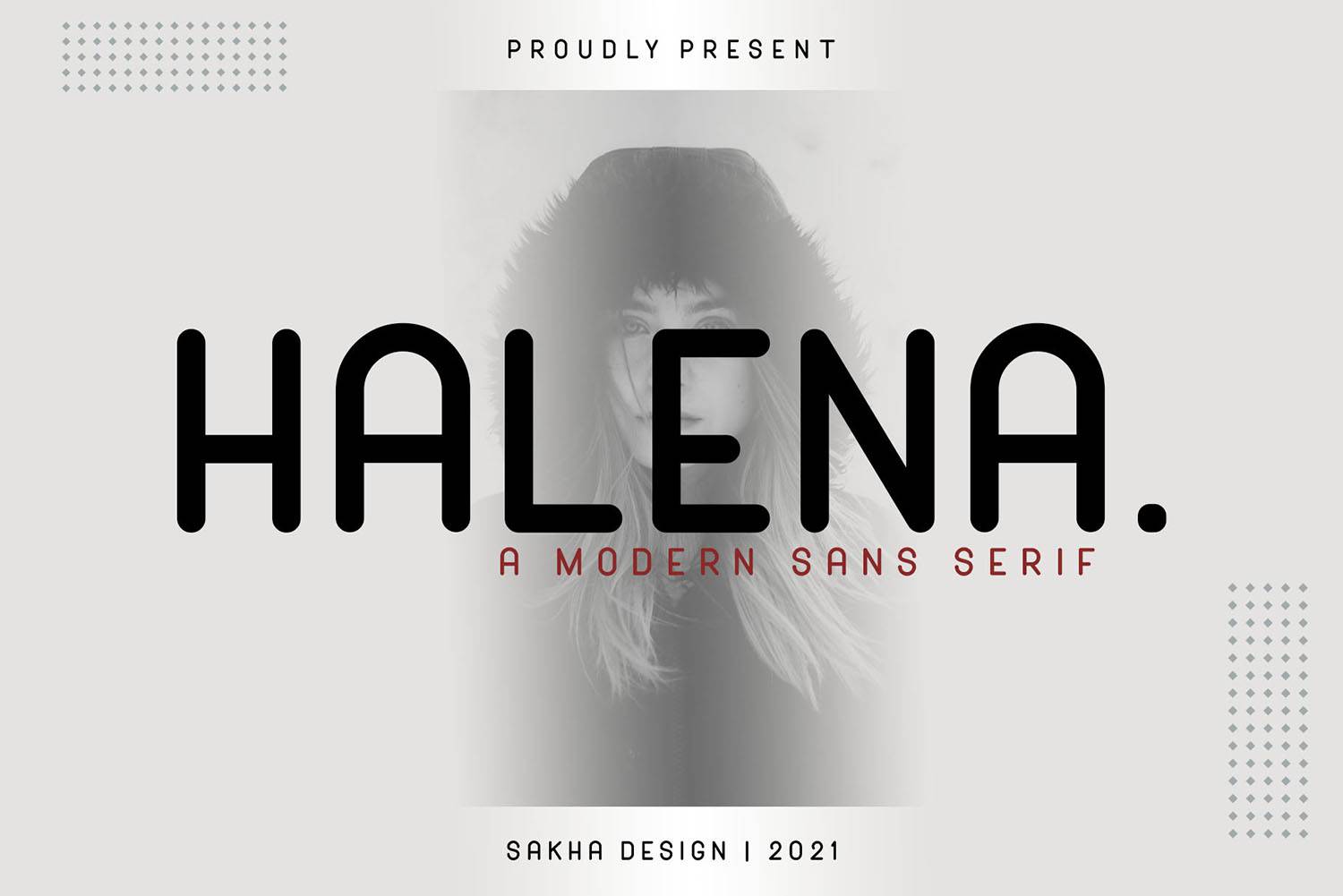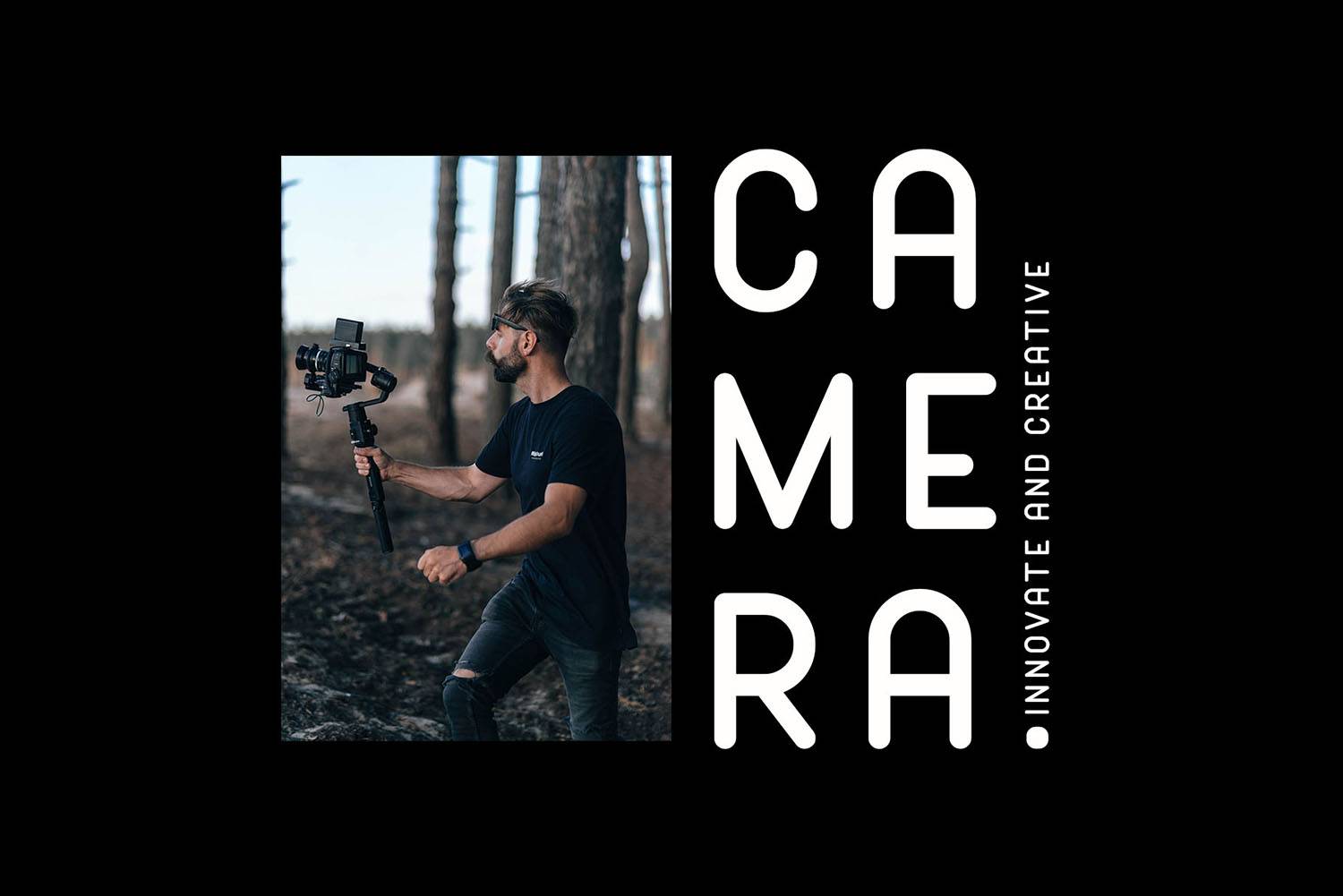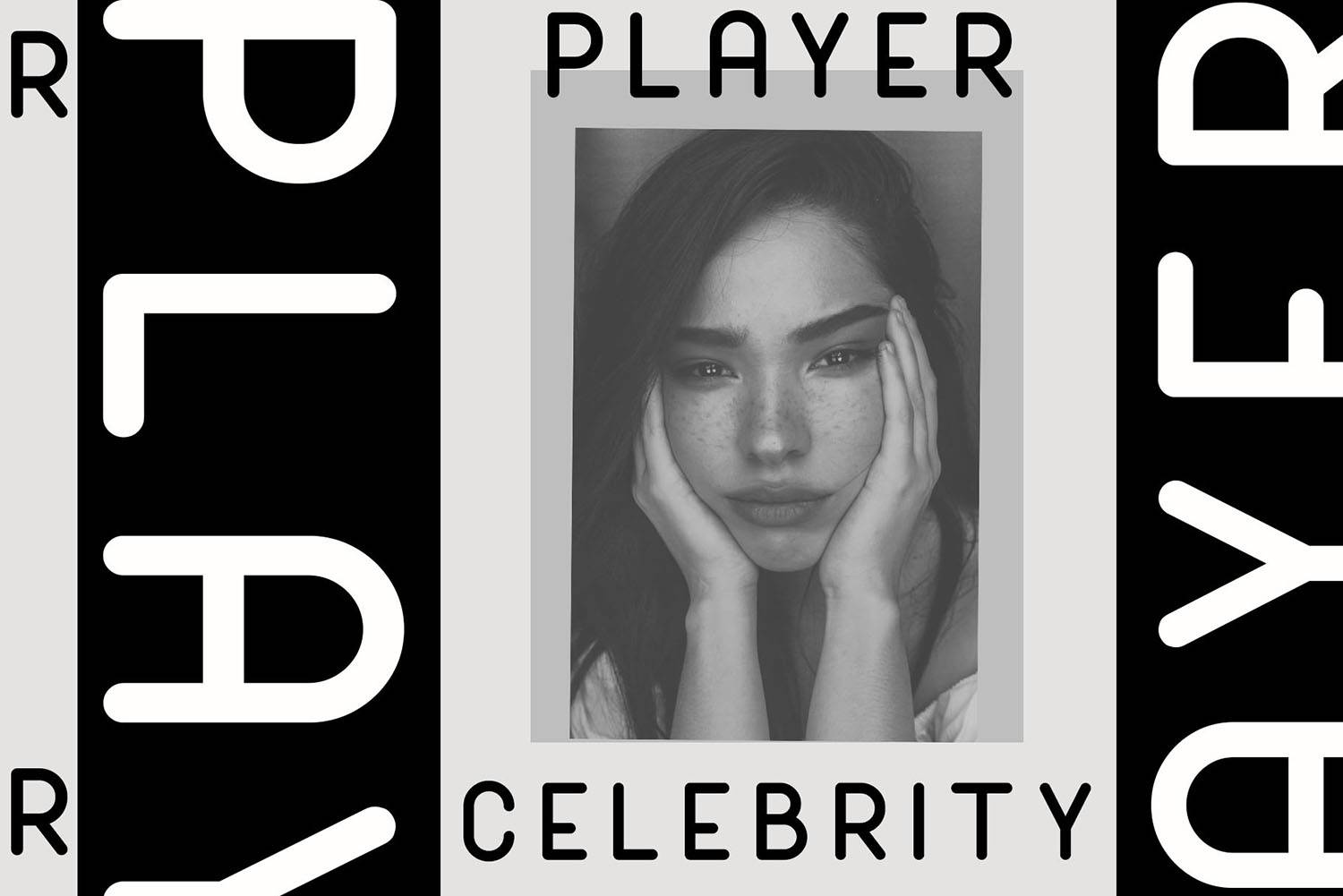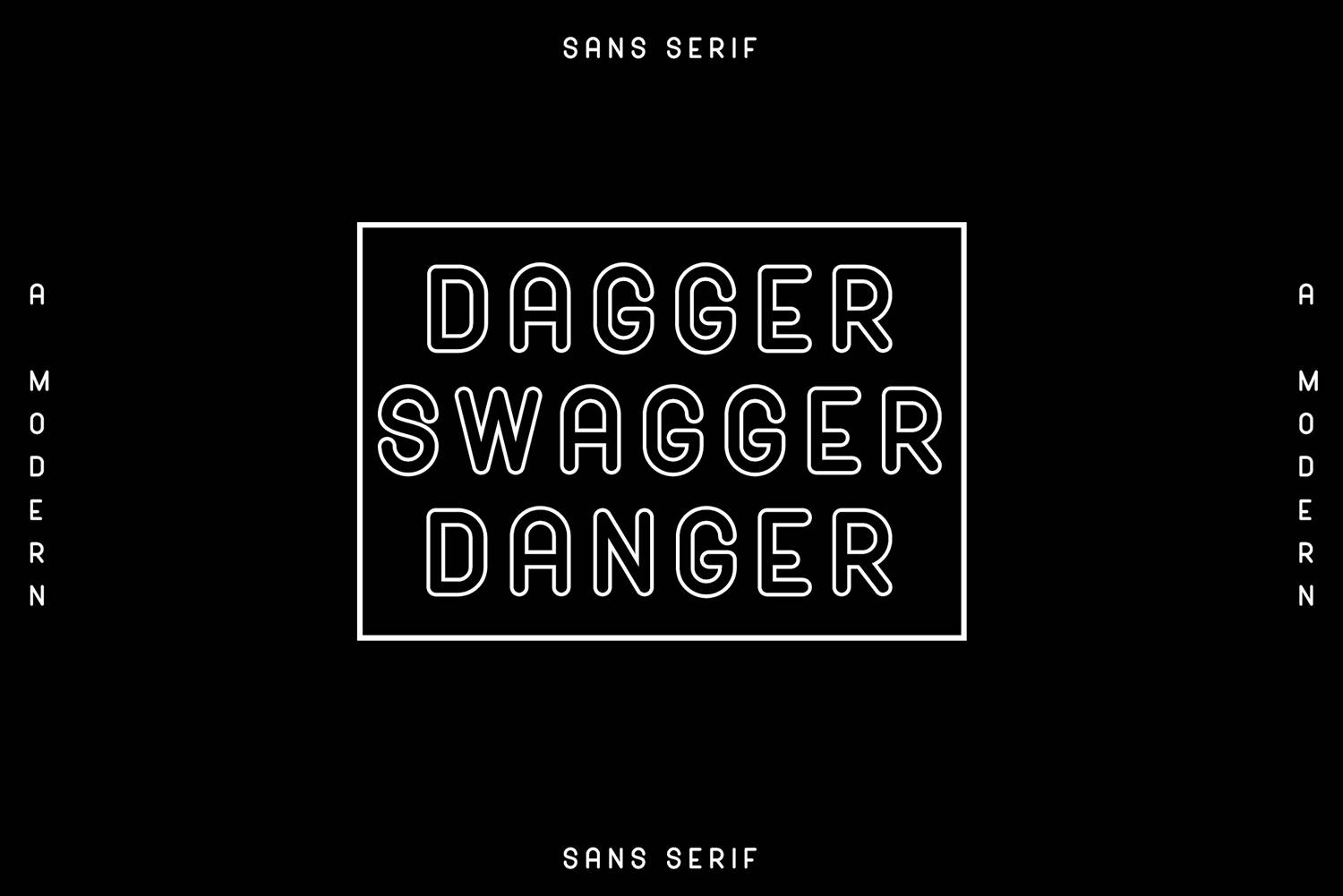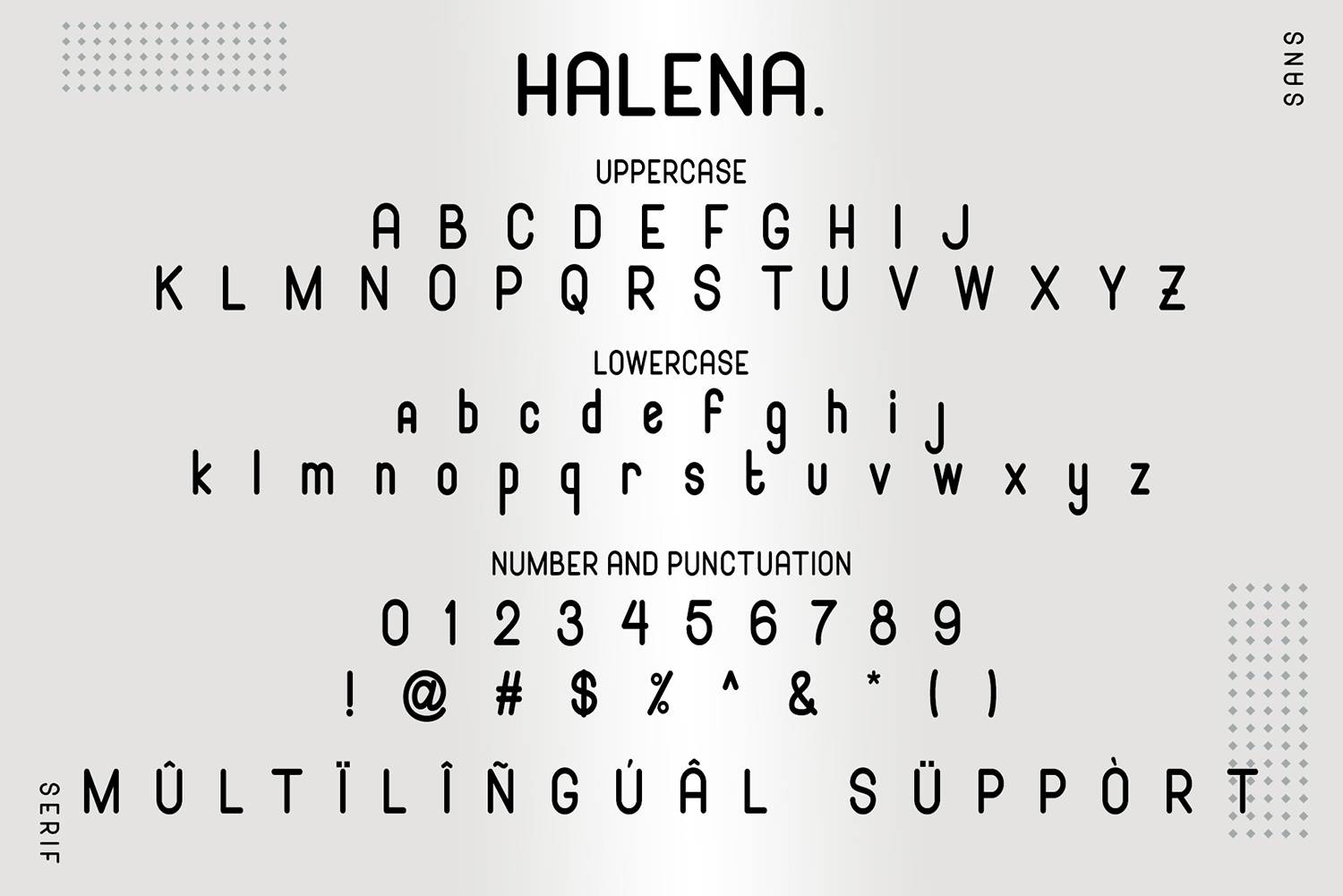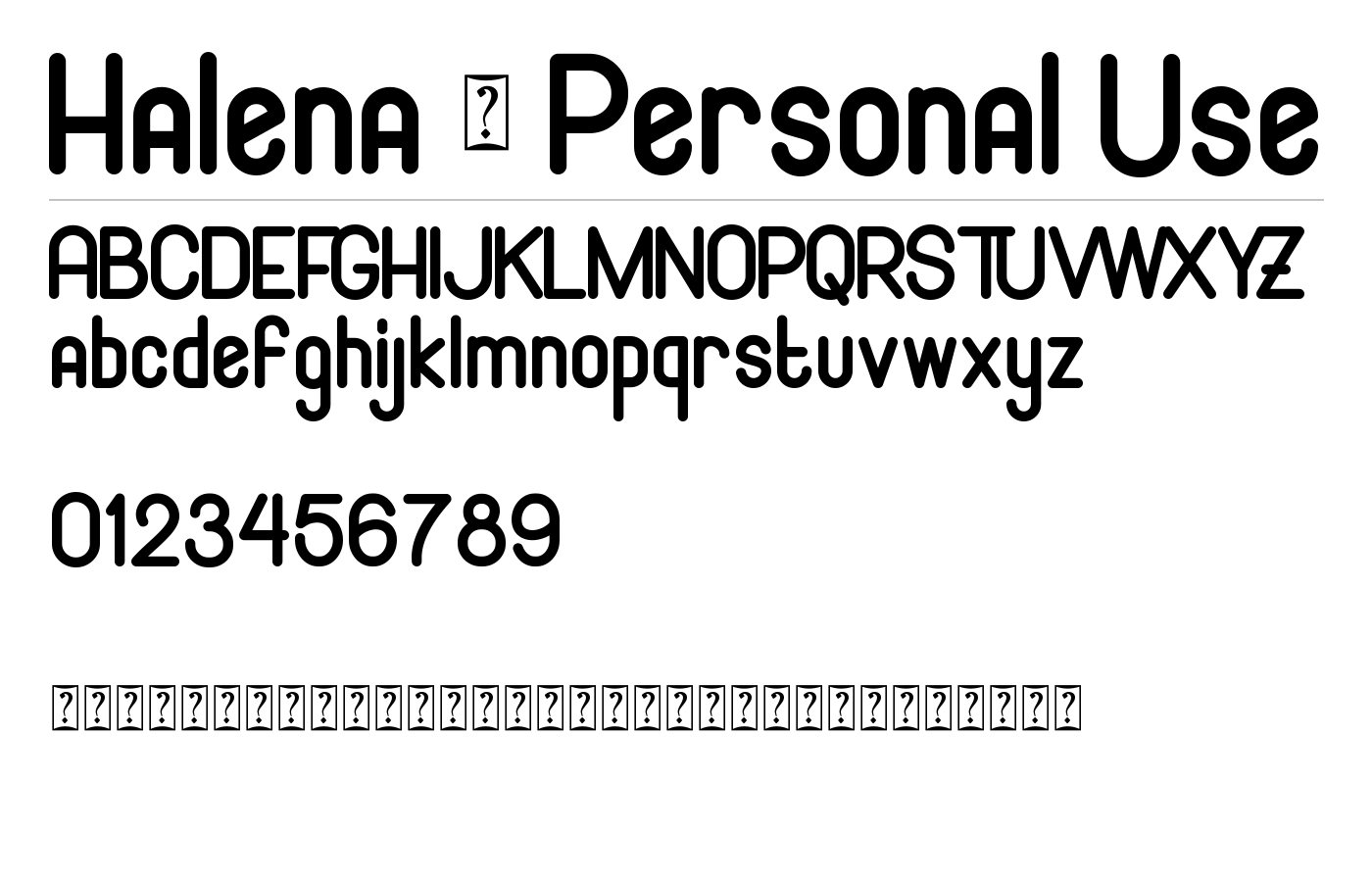
Halena is a friendly and modern sans serif font with rounded terminals and a playful, slightly condensed structure. Its clean lines and consistent weight make it highly readable, while unique touches like the curved Q tail and rounded lowercase letters add personality. This versatile typeface works well for informal branding, packaging, headlines, and digital content seeking a warm yet contemporary feel.
Halena Font
About Halena Font